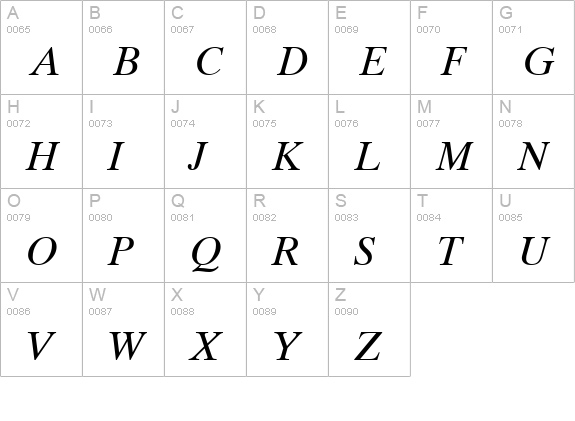
Tamal Italic Font Details
Tamal Italic is a distinctive, italic variant in the Tamal typeface family \xE2\x80\x94 well suited to design and typography projects.
Tamal Italic is a stunning typeface that exudes elegance and sophistication. Its delicate curves and graceful strokes make it perfect for adding a touch of class to any design project. Whether you're creating a wedding invitation, a stylish logo, or a refined branding concept, Tamal Italic will elevate your work to new heights. What sets Tamal Italic apart is not only its timeless beauty but also the fact that it is absolutely free. Yes, you read that right! This exquisite font can be freely downloaded at FontsMarket.com. It's a rare gem in the world of typography, as finding a high-quality font that doesn't come with a hefty price tag can often be quite a challenge. Tamal Italic offers a wide range of versatility, making it suitable for both print and digital designs. Its clean and legible letterforms ensure optimal readability, even at smaller sizes. The italicized style adds a touch of flair and sophistication, effortlessly capturing attention and leaving a lasting impression. This font is the result of meticulous craftsmanship and attention to detail. The designers have poured their passion into every curve and stroke, resulting in a typeface that is both visually pleasing and technically impeccable. Tamal Italic seamlessly blends traditional calligraphy with modern design elements, creating a harmonious balance that is pleasing to the eye. With Tamal Italic, you have the freedom to explore your creativity without any limitations. It is a font that empowers designers to bring their visions to life, whether it be in the realm of branding, advertising, or editorial design. Its versatility knows no bounds, and it adapts effortlessly to any style or aesthetic. So why wait? Embrace the beauty of Tamal Italic and let it elevate your designs to new heights. Download this exquisite font for free at FontsMarket.com, and unlock a world of endless possibilities. Experience the joy of working with a premium quality font without breaking the bank. Tamal Italic is the epitome of elegance, and now it can be yours, completely free.